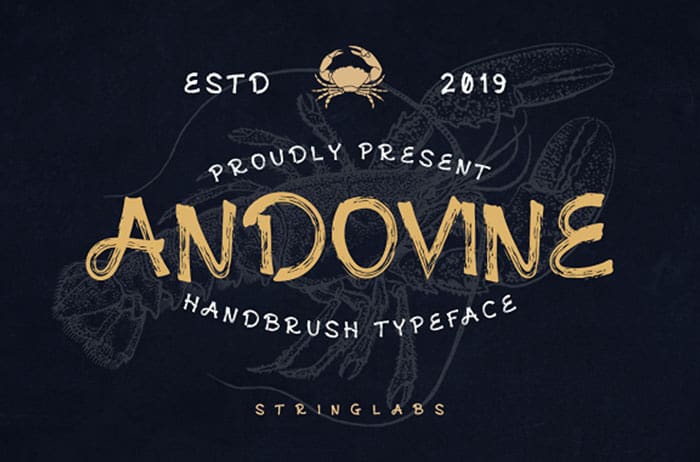
Andovine Handbrush Typeface Font
Free Andovine is a handbrush font with authentic style. This font is made with a brush pen with very careful techniques, so the results are charismatic and have enchanting characteristics. This font is available only for personal use. Created this font by StringLabs. You can also search more free Fonts. Thanks!